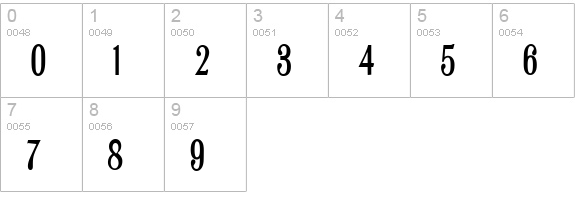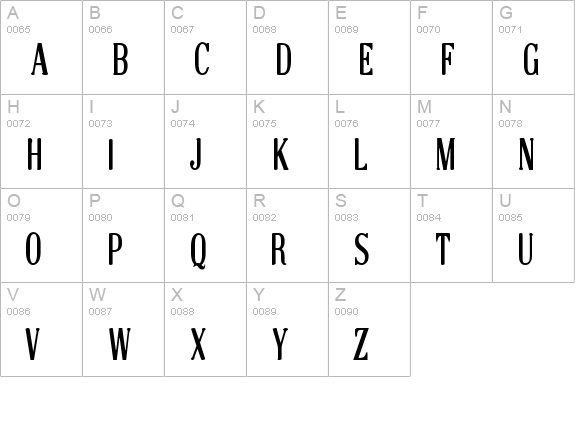
Scoglietto Font Details
Scoglietto font is a stunning typeface that effortlessly combines elegance and versatility. Its clean lines and graceful curves make it the perfect choice for a wide range of design projects, from sophisticated branding to impactful headlines. This font exudes a sense of timeless beauty, drawing inspiration from classic typefaces while adding a modern twist. With its balanced proportions and meticulously crafted glyphs, Scoglietto stands out as a truly remarkable font that captures attention and conveys a sense of professionalism. One of the most notable features of Scoglietto font is its versatility. It seamlessly adapts to different design styles, whether it's used for a luxurious fashion magazine or a minimalist website. Its ability to enhance any project is truly remarkable. But what sets Scoglietto apart from other fonts is the fact that it is free. That's right, this exceptional typeface is freely available to download at FontsMarket.com. This means that you can elevate your designs without breaking the bank. Whether you're a professional designer or a passionate hobbyist, Scoglietto font empowers you to create stunning visuals without any limitations. So why wait? Download Scoglietto font today and unlock a world of design possibilities. Whether you're working on a logo, a website, or any other creative endeavor, this font will undoubtedly elevate your work to new heights. Experience the beauty and versatility of Scoglietto font and let your designs shine like never before.